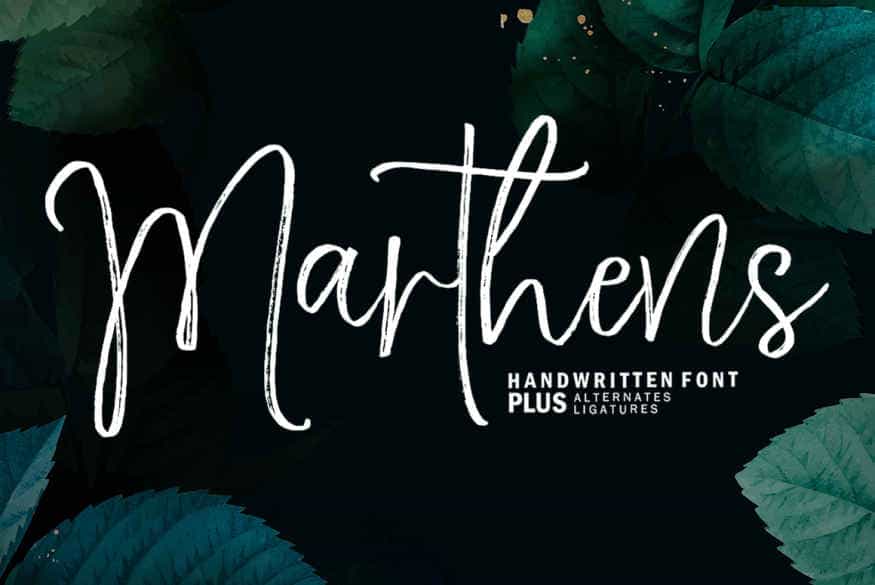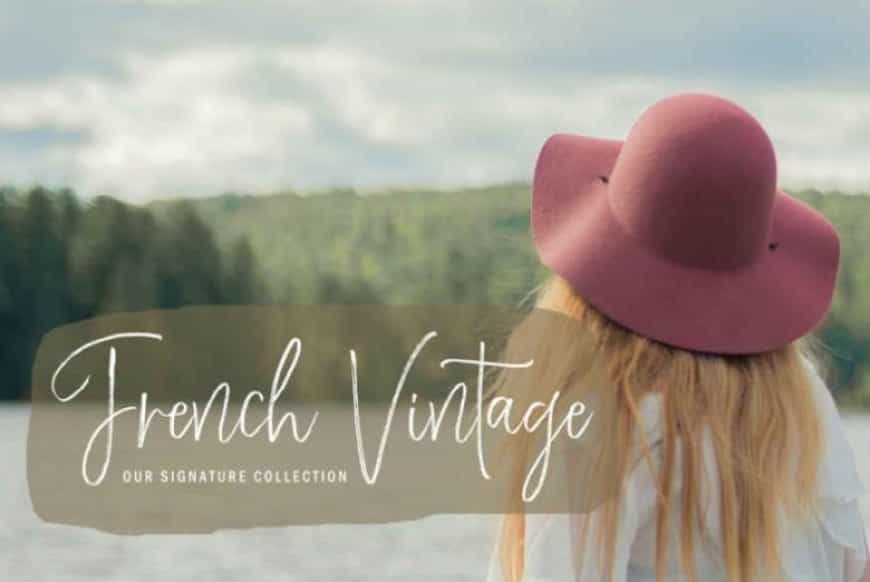
Marthens is a playful and informal handwritten font, which was made with a brush pen. This font will be a show stopper in any situation, whether it is being used on busy backgrounds or as an individual headline!